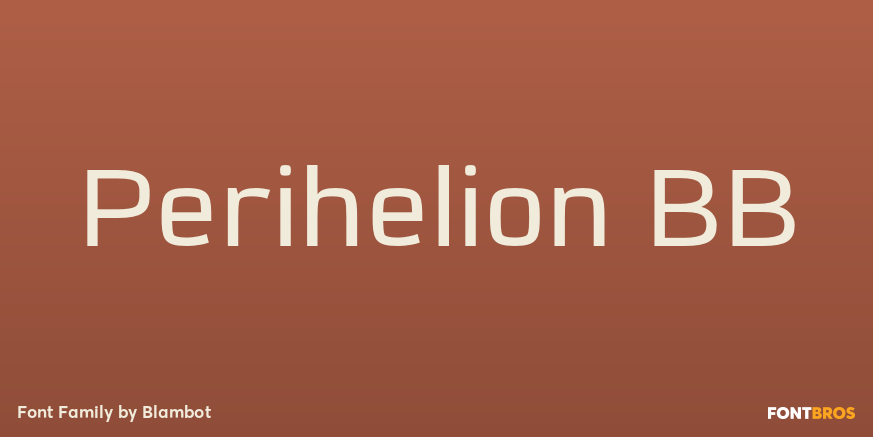
Perihelion BB
About Perihelion BB
Perihelion BB is a sans-serif body copy font with a slight science-fiction influence. It includes Regular, Bold, Italic, Bold-Italic, Condensed, Condensed Italic, Condensed Bold, and Condensed Bold-Italic. Perihelion BB also has a hefty compliment of…